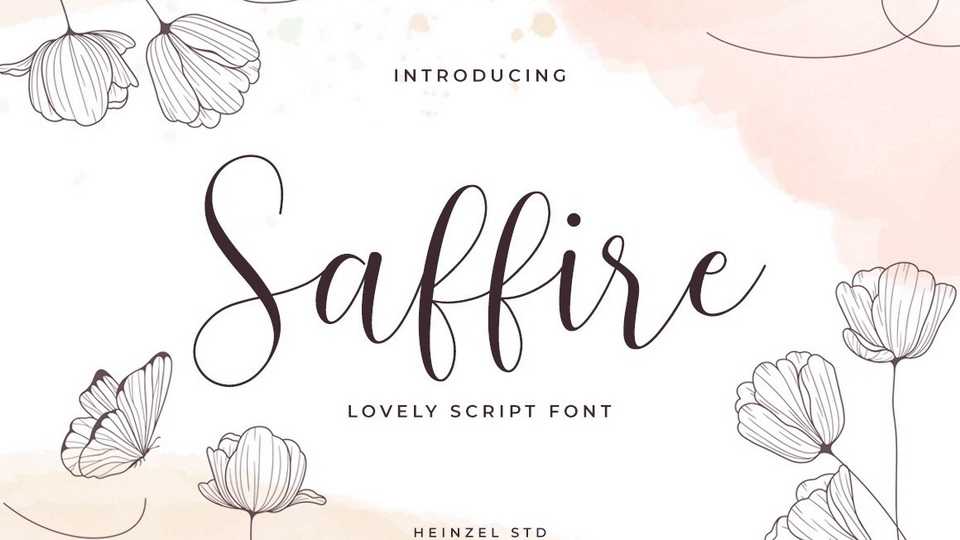
Download Saffire font, an elegant and flowing handwritten font that features a varying baseline and smooth lines. Saffire will bring your projects to the highest levels.
Designer: Heinzel Studio